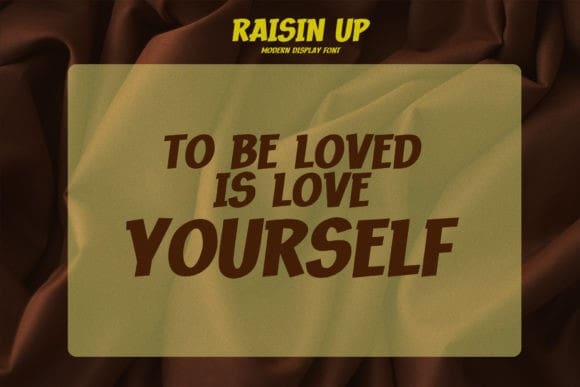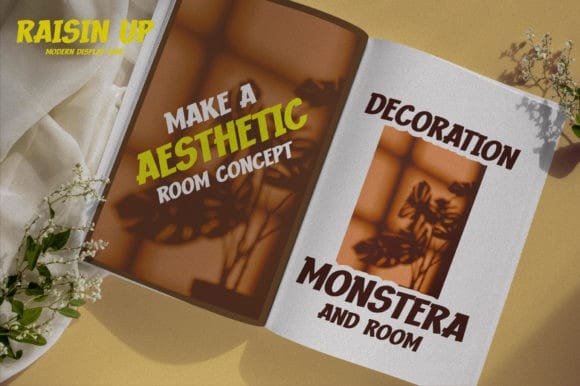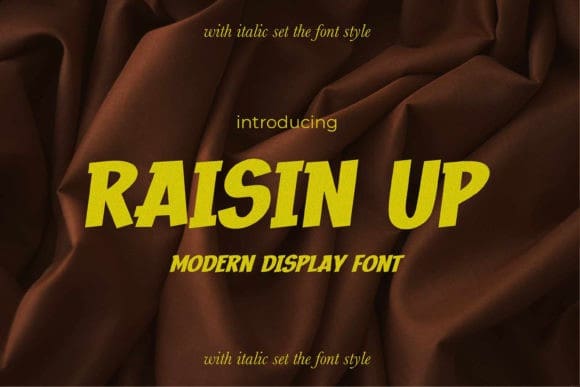
Raisin Up Font
Raisin Up Font is a retro and adaptable display font. Its natural and unique style makes it incredibly fitting to a large pool of designs. The only limit is your imagination!